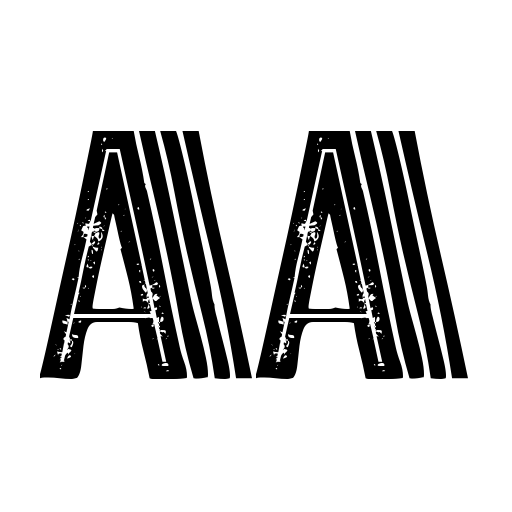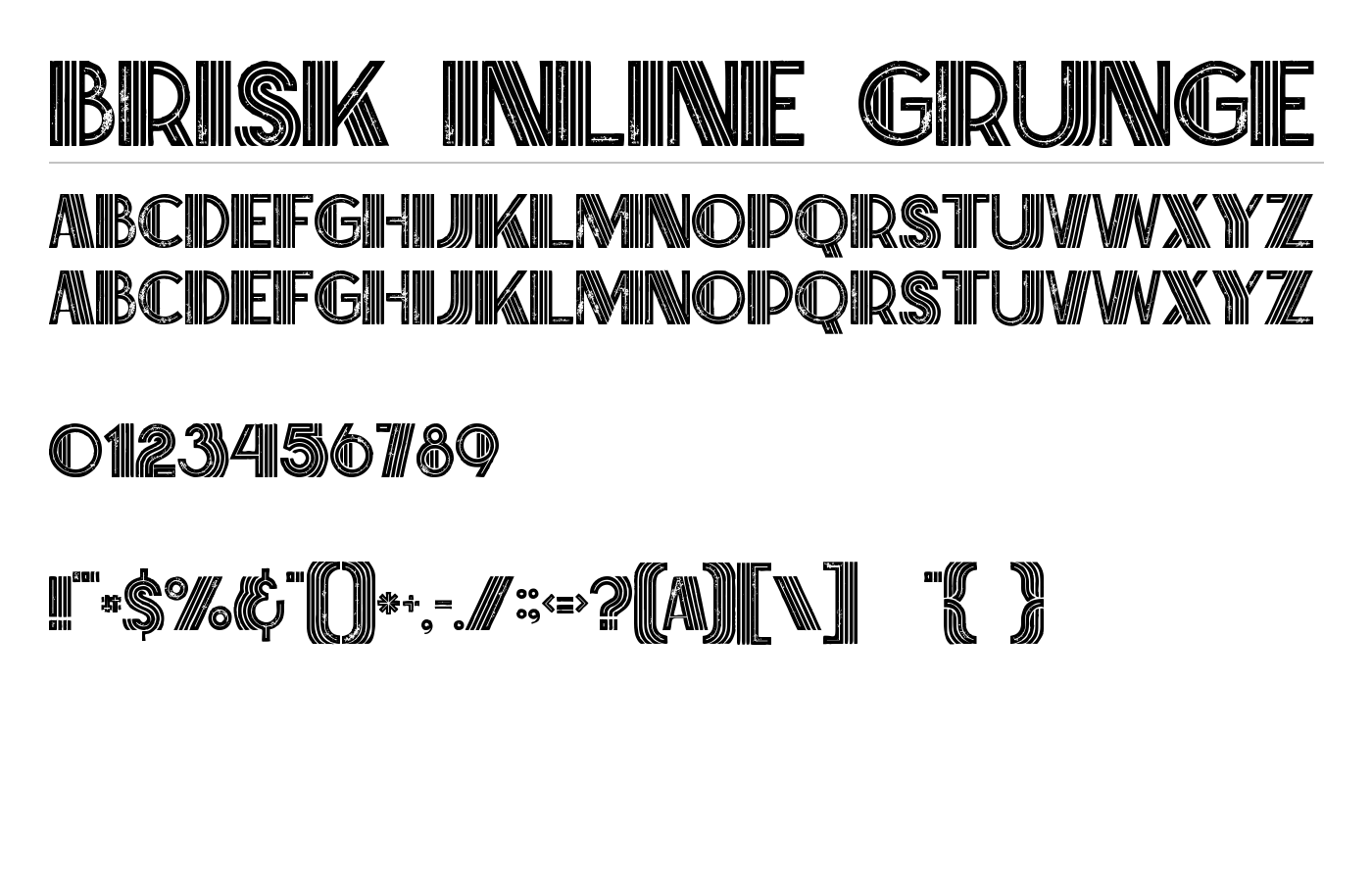
Brisk Inline Grunge is a bold, condensed sans serif font with an eye-catching inline style and a distressed, textured finish that adds a vintage, edgy vibe. Its all-caps letterforms feature clean geometric lines combined with worn, grunge details, making it perfect for striking headlines, posters, and branding that aims for a retro yet modern look. This font stands out in creative, urban, or alternative designs where a bold statement with a touch of ruggedness is desired.
Brisk Inline Grunge Font
About Brisk Inline Grunge Font
| Font family | Brisk Inline Grunge Font |
| Designer | cruzine |